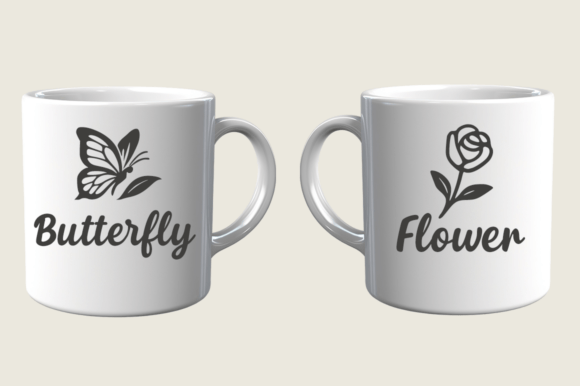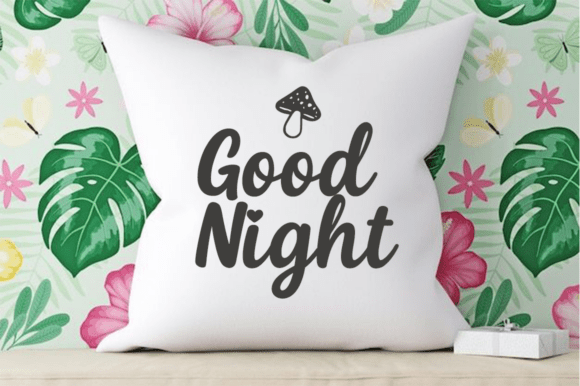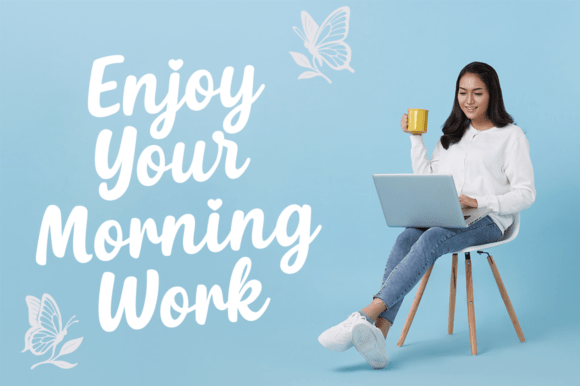
Introduction to Kimily Font
Introducing Kimily — your new signature calligraphy font with a contemporary twist.
Artfully handcrafted with smooth, seamless strokes, Kimily certifies an air of elegance and sophistication Coupled with harmonious contrast and superior readability, the soft, feminine nuances of each character are crafted to perfection, offering a delightful blend of style and consistency.
Key Features of Kimily Font
Why Choose Kimily Font?
Kimily Font offers exceptional quality and versatility, making it a valuable addition to your design toolkit. Whether you’re creating for personal projects or commercial use, Kimily Font delivers professional results.